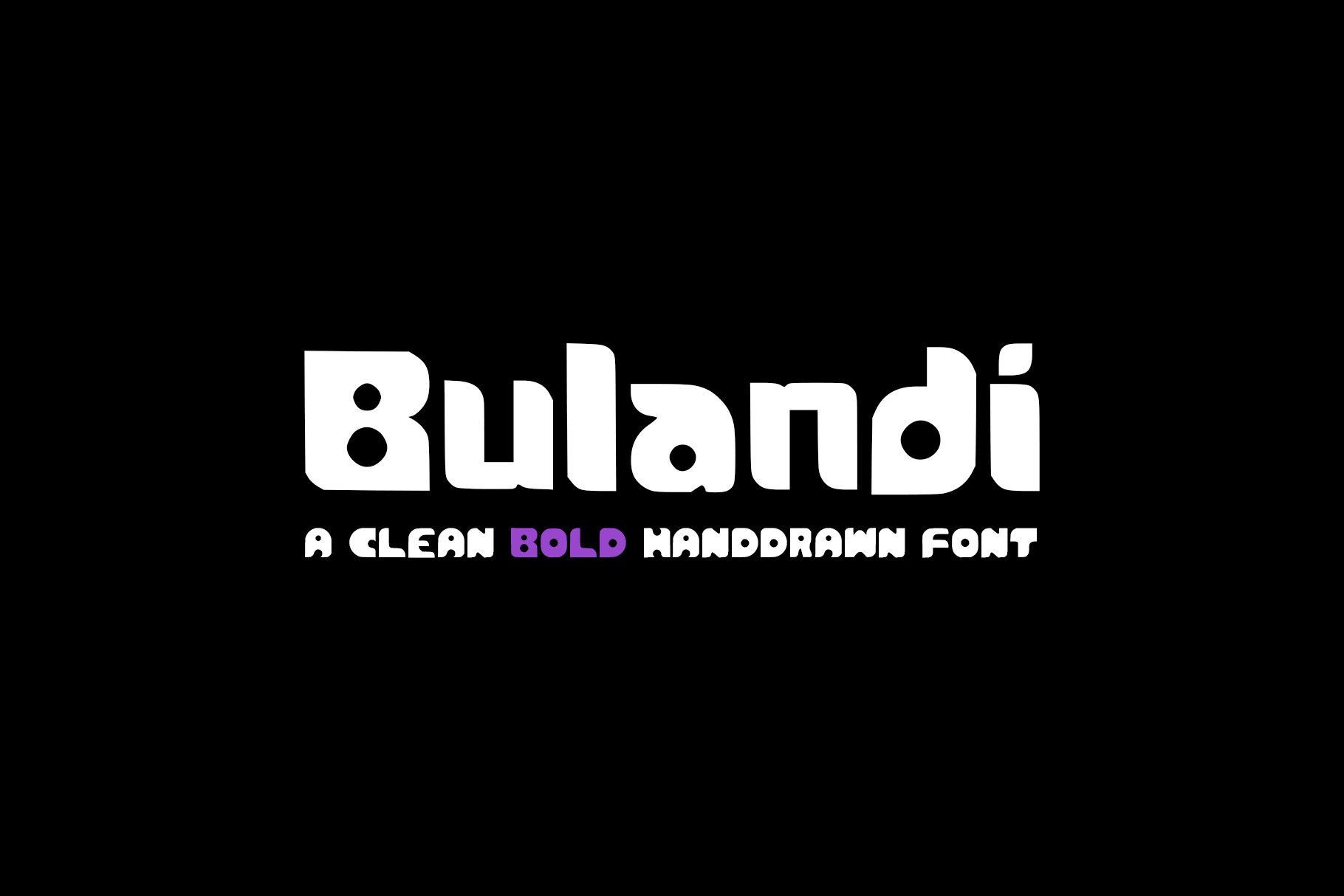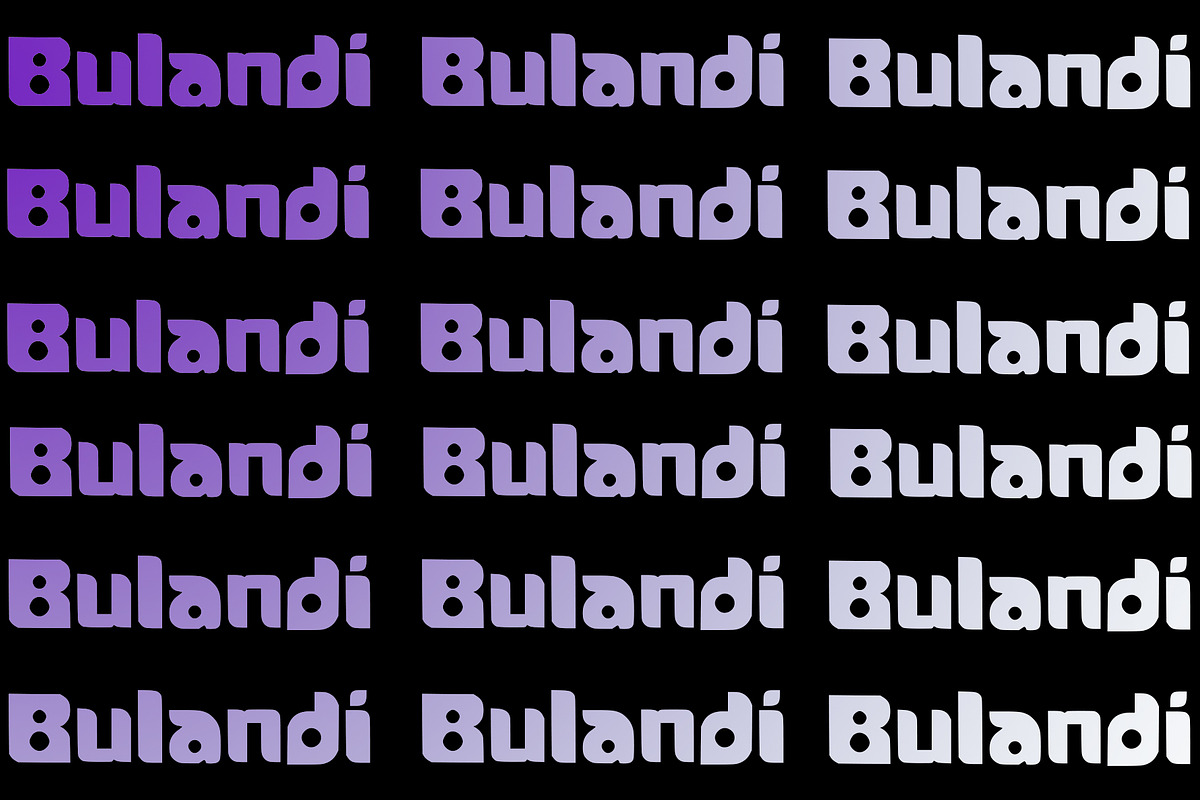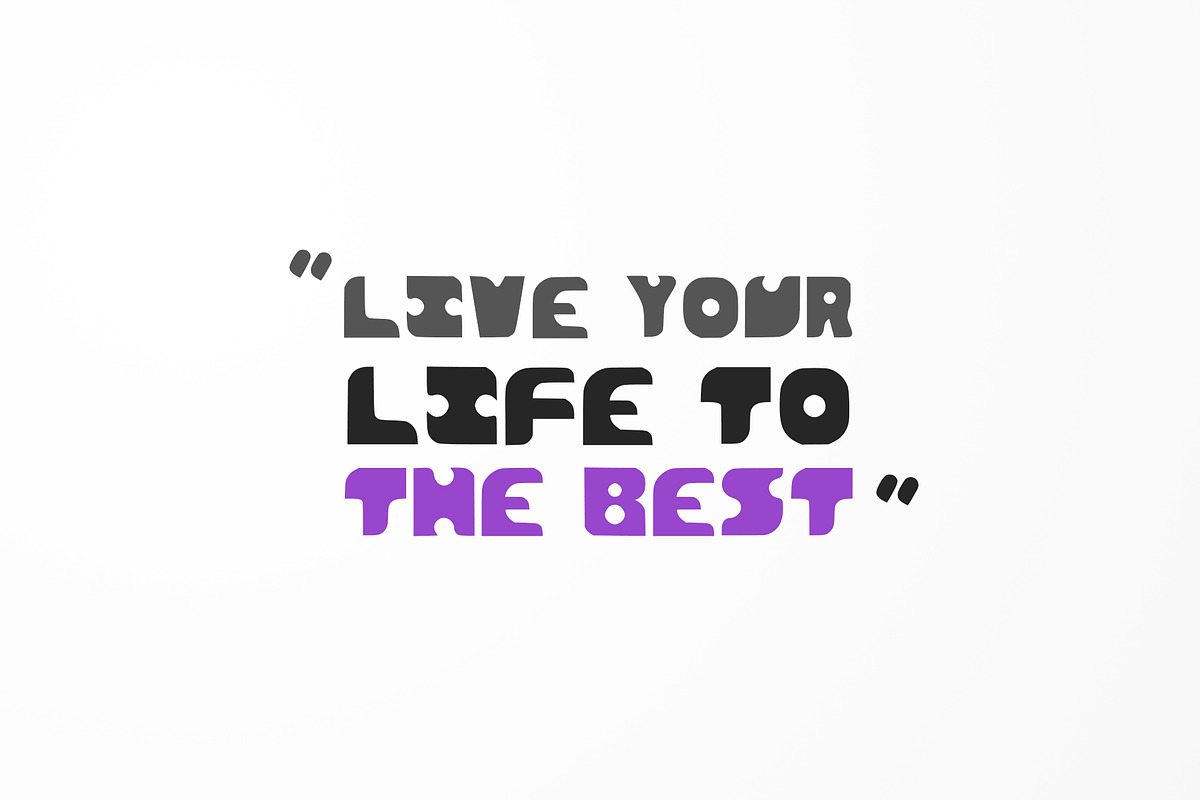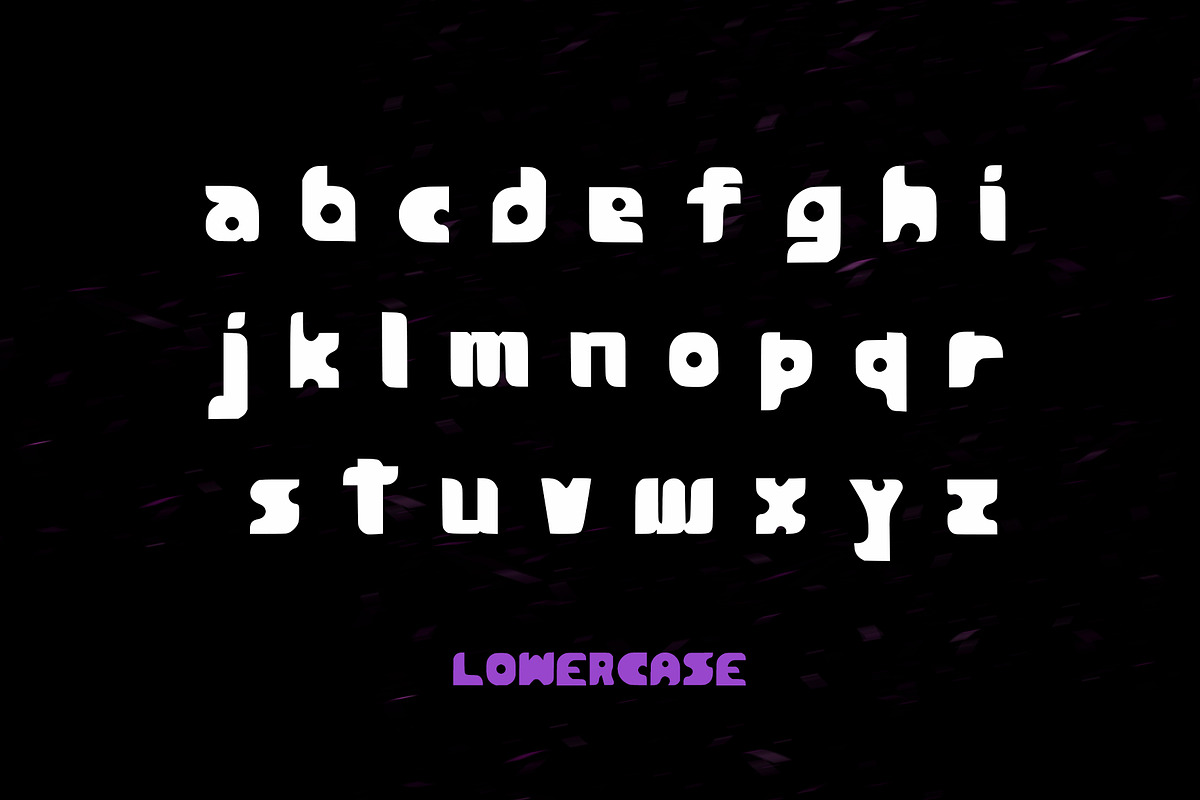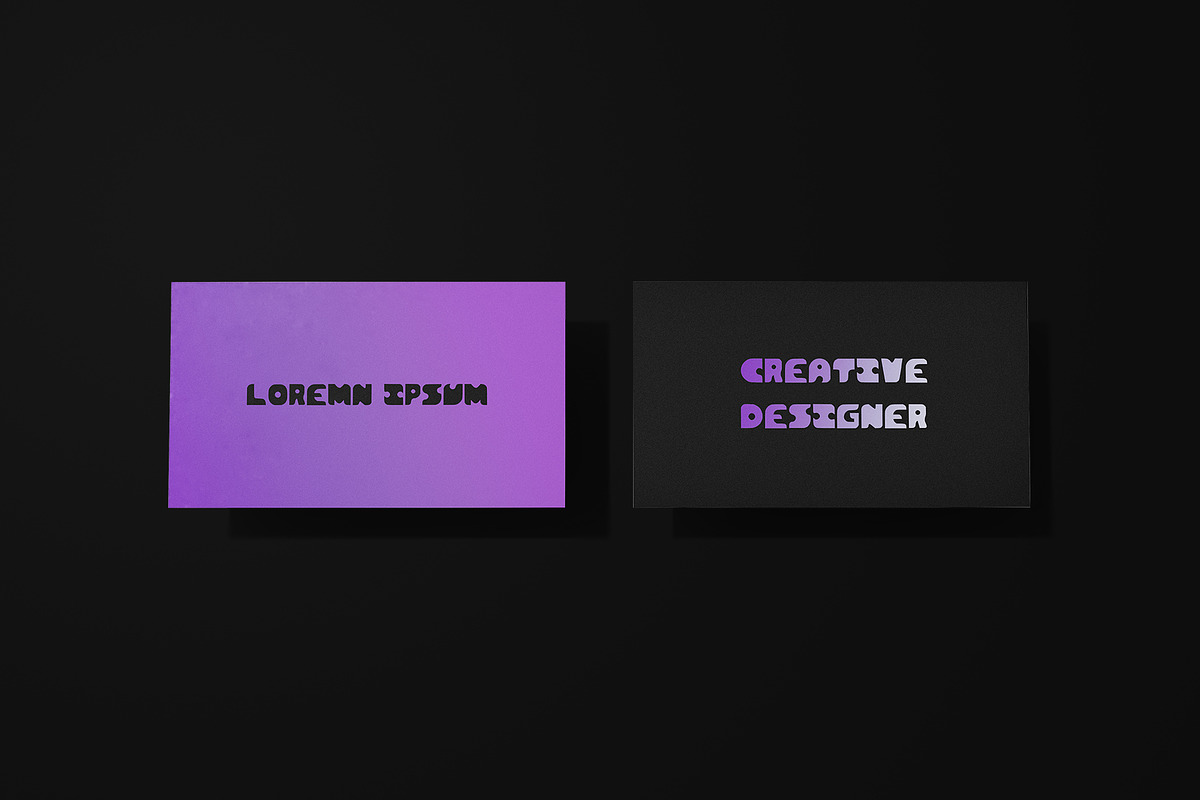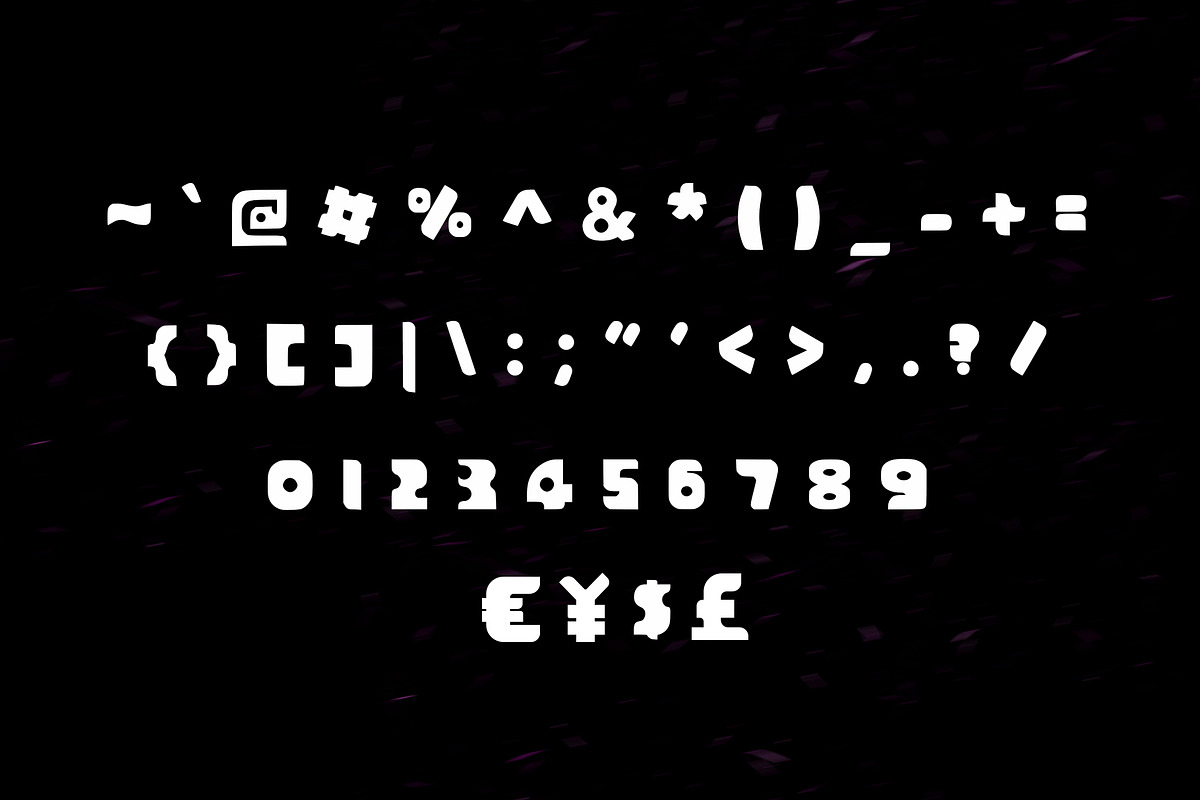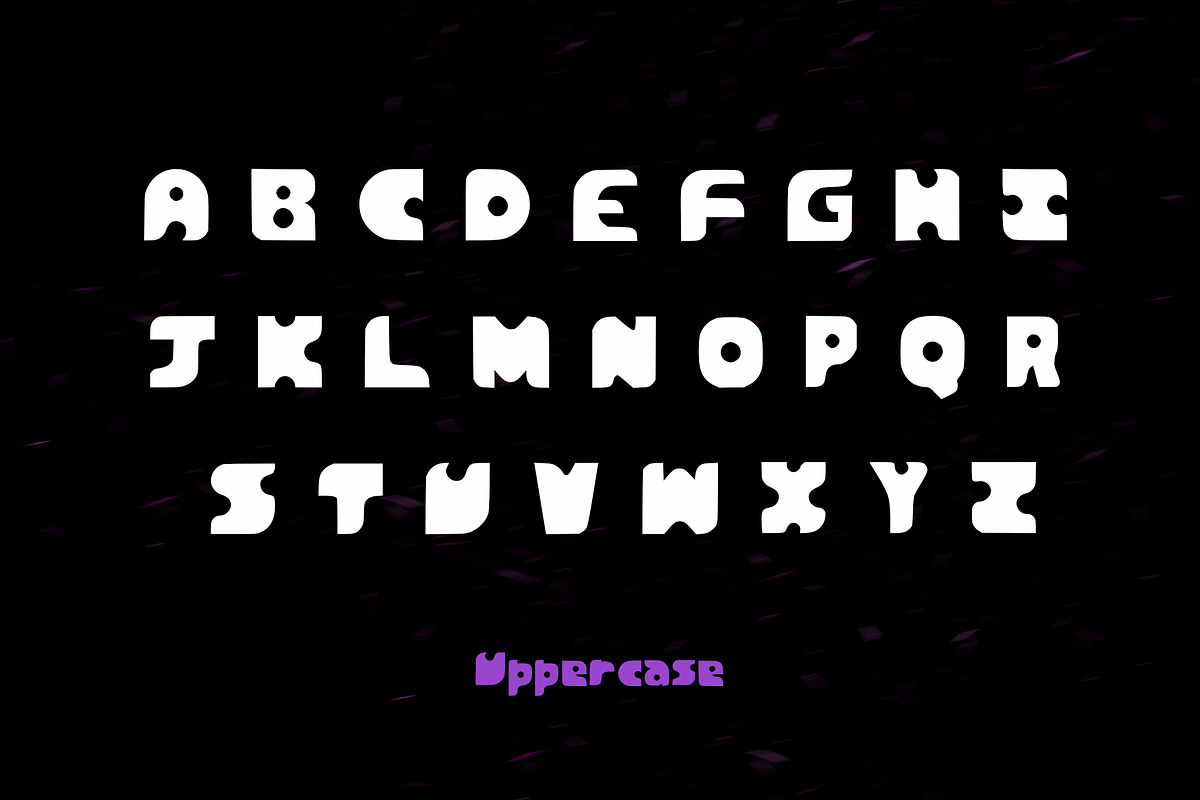
Bulandi Hand Drawn Bold Display Font
Bulandi is a clean bold hand written display font, its eye catchy and minimalistic looks will leave the heads turned at your brand.
This font includes both upper case and lowercase letters, numbers and 30+ punctuations and symbols.